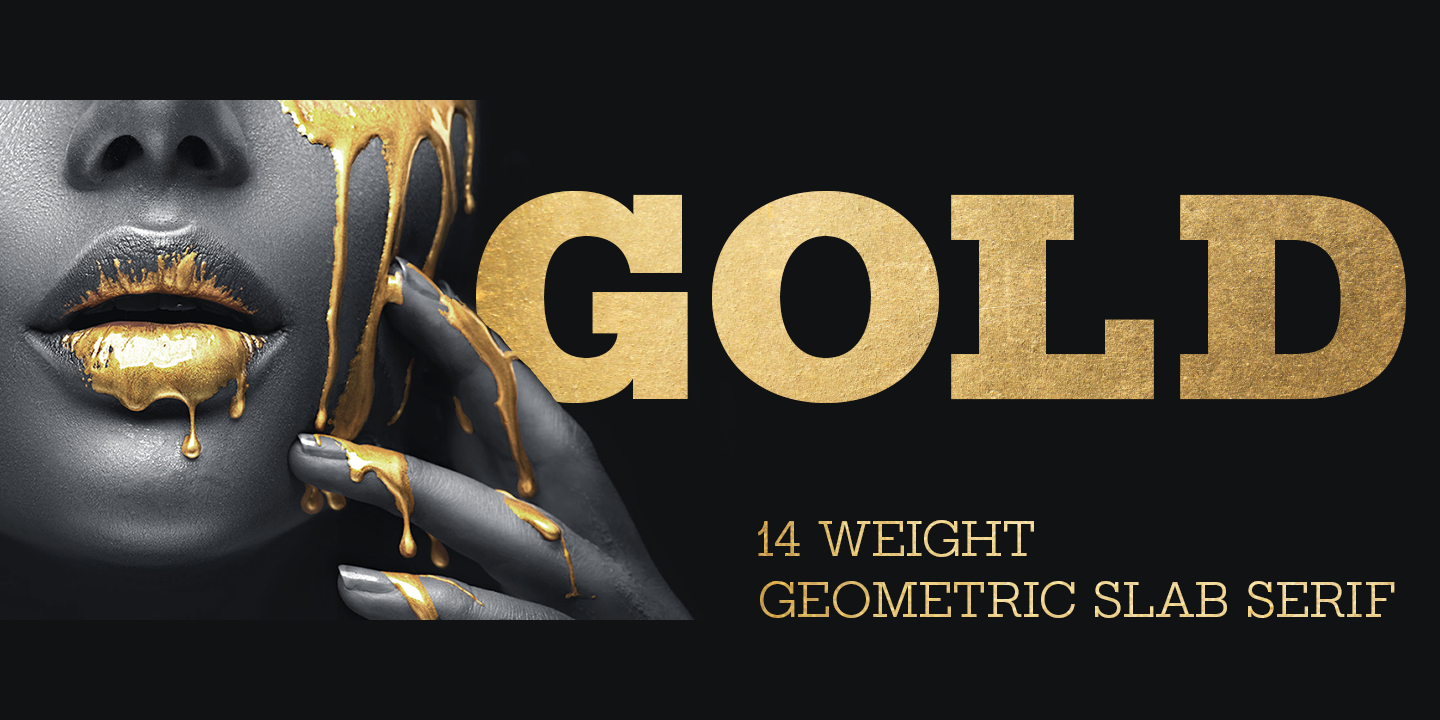
Gold Font is perfect for luxury brand identities, premium jewelry packaging, high-end financial services, exclusive award ceremonies, prestigious hotel materials, luxury real estate marketing, elite membership programs, upscale restaurant branding, luxury automotive advertising, and premium investment portfolios.
Gold Font is exciting because it embodies the ultimate expression of luxury and prestige through its lustrous, precious-metal inspired letterforms that radiate wealth and exclusivity while delivering messages with golden elegance and uncompromising premium appeal.
Gold Font family includes Regular, Bold, Light, Platinum, Italic, Condensed, Gilded, and Treasure variations, offering designers a complete luxury toolkit to create opulent visual communications that celebrate wealth, success, and the finest things in life across exclusive applications.
Gold Font represents the pinnacle of luxury design and premium brand communication, making it an essential choice for organizations and brands that cater to affluent clientele and operate in the highest echelons of luxury markets. This opulent typeface brings precious metal elegance to any design project, whether you're developing ultra-luxury brand identities, creating exclusive event materials, or designing investment banking communications. The lavishly crafted character proportions of Gold Font Free Download ensure maximum prestige impact while maintaining excellent readability across both premium print applications and digital platforms serving wealthy clientele and luxury market segments.
Luxury industry professionals consistently choose Gold Font for private banking institutions, exclusive jewelry houses, and ultra-high-end hospitality brands because of its ability to instantly communicate wealth, exclusivity, and connection to the world's most prestigious luxury traditions. The font's opulent appearance makes it particularly effective for targeting high-net-worth individuals and creating brand experiences that justify premium pricing and exclusive membership.
Gold Font excels in financial and luxury retail environments where prestige and wealth accumulation are primary motivations. Private wealth management firms, luxury auction houses, and exclusive boutiques rely on this font to create materials that reflect their commitment to serving the world's most affluent consumers and investors.
The hospitality and lifestyle sectors have embraced Gold Font for five-star hotels, luxury cruise lines, and premium lifestyle publications. Its precious visual character helps organizations create communications that celebrate wealth achievement and luxury aspiration, appealing to consumers who view luxury purchases as symbols of success and social status.